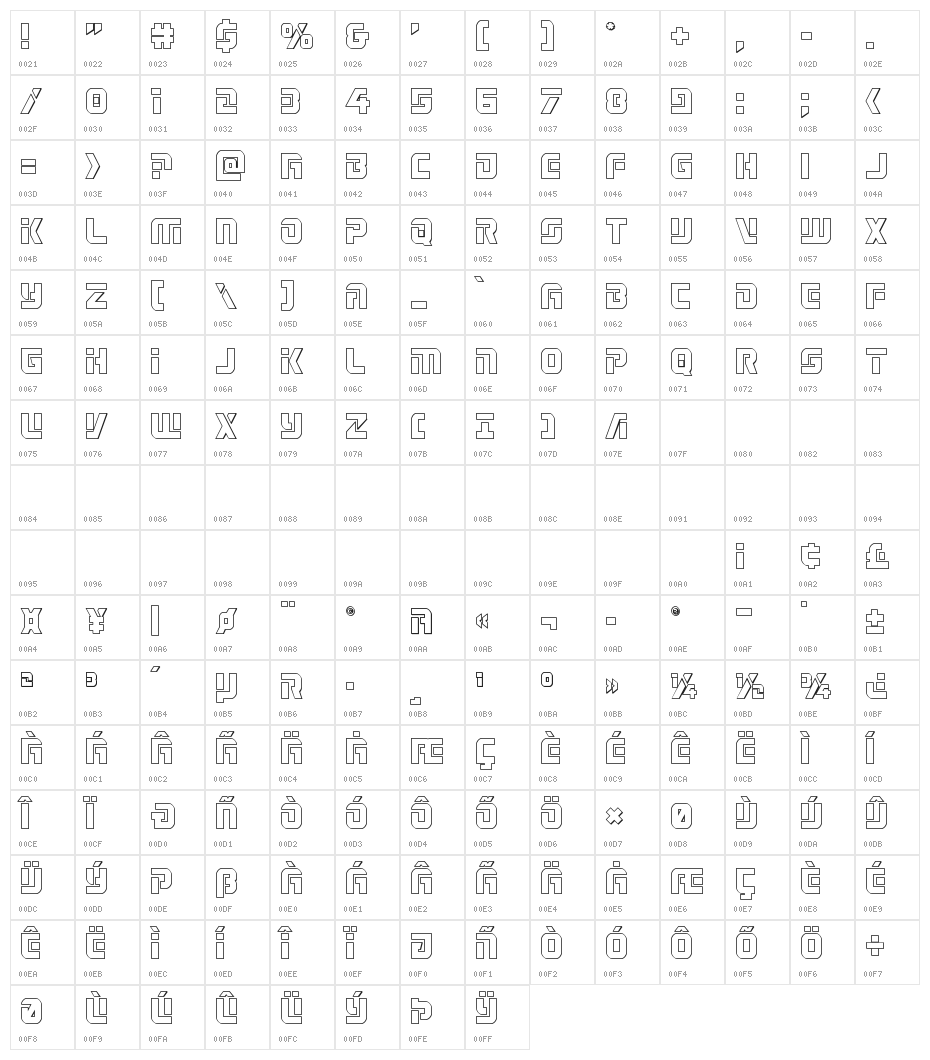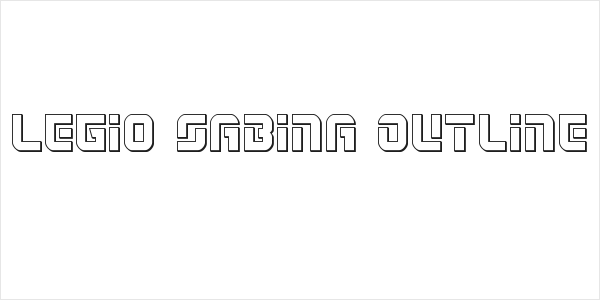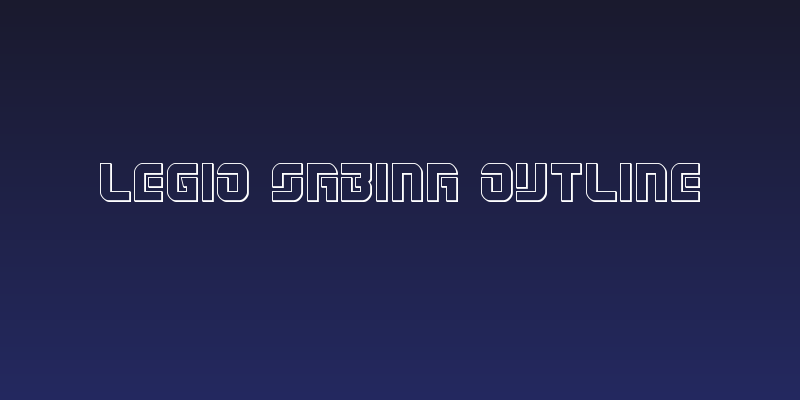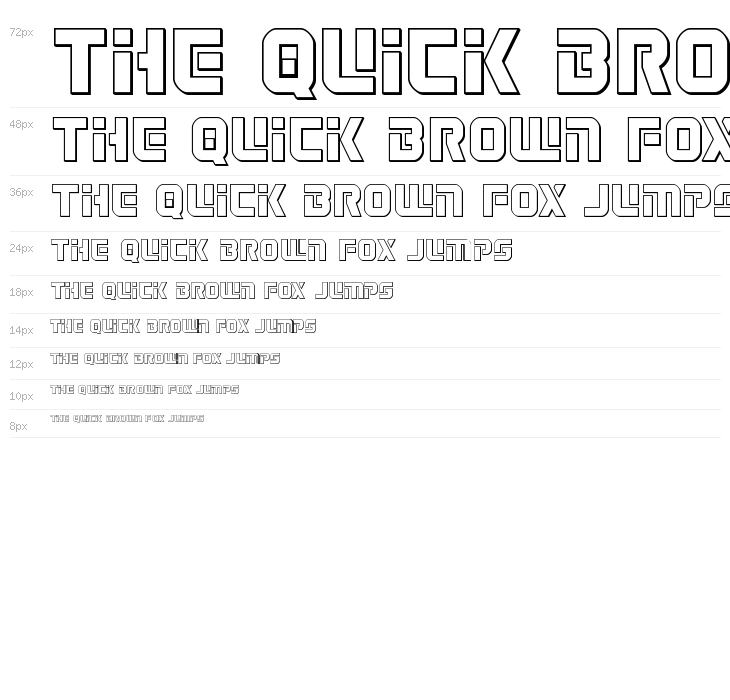
Legio Sabina Outline Font
Legio Sabina Outline Description
This font features a bold, geometric outline style that gives it a modern and futuristic appearance. The characters are constructed with clean, angular lines and a uniform stroke width, creating a sense of precision and clarity. The uppercase and lowercase letters maintain a consistent design, with the lowercase mirroring the uppercase in form but slightly reduced in size. Numbers and special characters follow the same design principles, ensuring a cohesive look across all glyphs. The overall aesthetic is both striking and versatile, making it suitable for a variety of design applications.